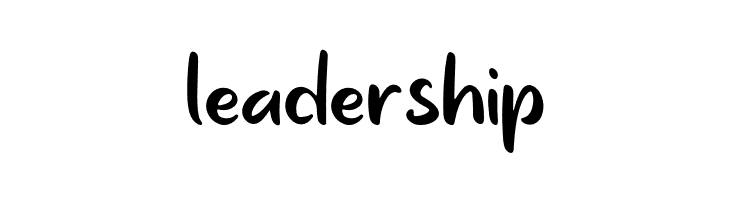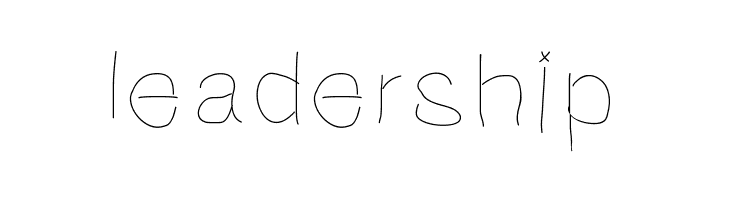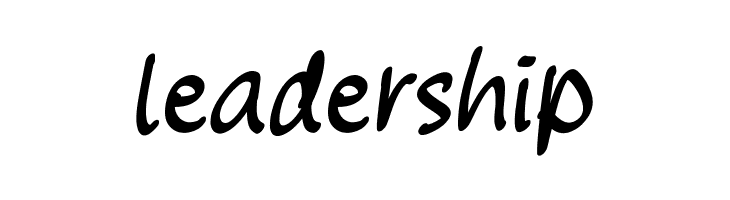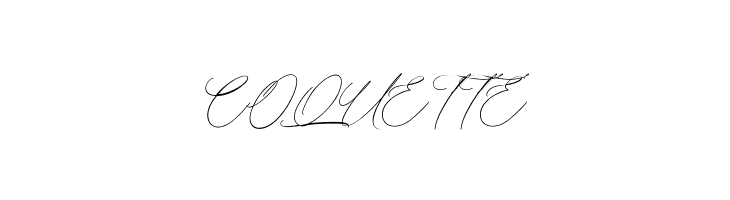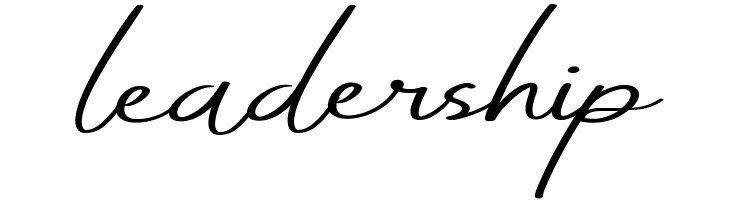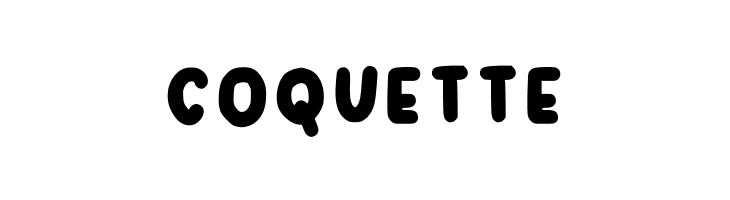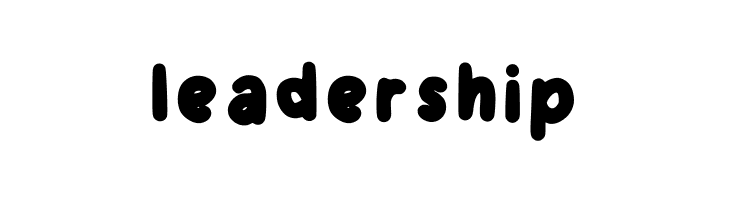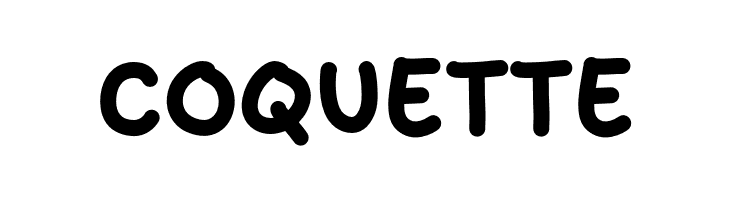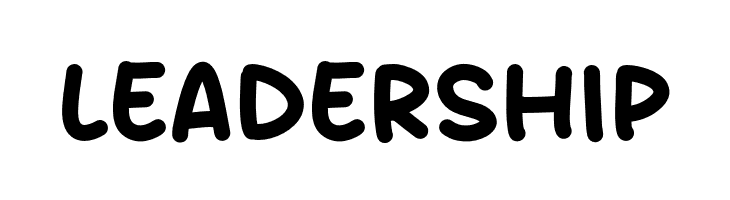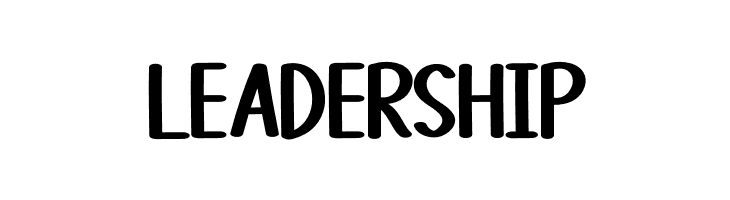
A playful, bold handwritten font with rounded, consistent strokes.
A playful, bold, hand-drawn font with a casual and friendly appearance.
Elegant cursive script with a handwritten style.
A bold, playful handwritten font with rounded, irregular letterforms.
A playful, hand-drawn font with bold, rounded characters and a whimsical style.
Playful handwritten script font.
An elegant, flowing script font with intricate swirls and flourishes.
A playful, handwritten-style font with a casual, comic book feel.
A playful, tall handwritten font with a casual and organic feel.
Casual handwritten font with a playful style.
A flowing, elegant script font with a handwritten style.
Elegant handwritten script with tall, narrow forms and high contrast.
Handwritten cursive font with artistic flair.
A playful, rounded font with bold, smooth curves and a friendly appearance.
A casual, handwritten font with smooth, consistent strokes and a playful appearance.
A playful, casual handwritten font with smooth, rounded edges.
Casual handwritten font with a playful style.
A playful, rounded font with bold strokes and a casual style.
A playful, handwritten font with rounded, smooth letterforms.
A playful, bold font with rounded, thick strokes and a friendly appearance.
A playful, casual handwritten font with thin, whimsical strokes.
A playful, handwritten font with a whimsical and unique style.
A playful, handwritten font with a lively and informal style.
Playful handwritten script with smooth, connected strokes.
A modern, casual handwritten script with smooth, connected strokes.
A clean, legible handwriting font ideal for educational materials.
A dotted handwriting guide font for educational use.
A clean, outlined font mimicking traditional school handwriting with a casual yet structured look.